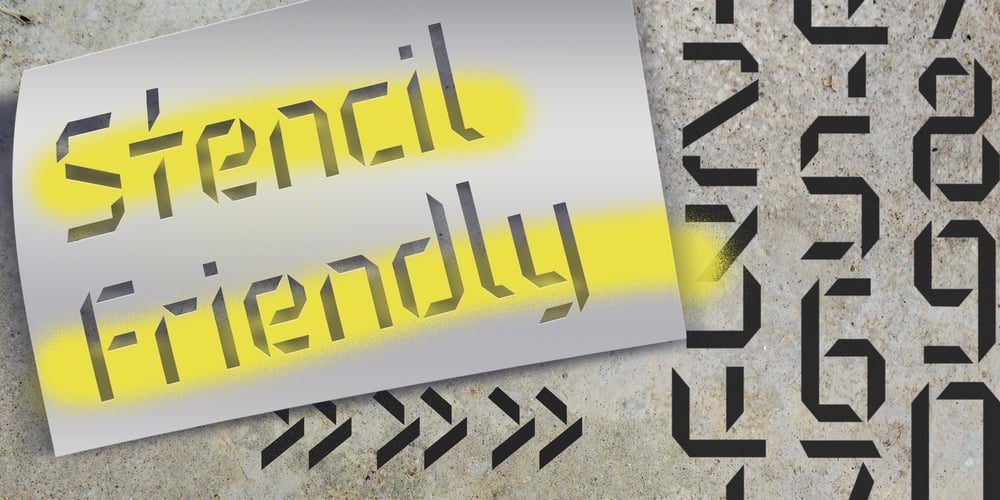
Kezuri Font Family was designed by John Power and published by Powerfonts. Kezuri contains 1 styles and family package options. Kezuri is a great choice to give your project a unique feel. Modern yet edgy, Kezuri is suited to high tech applications as well as urban / street projects.